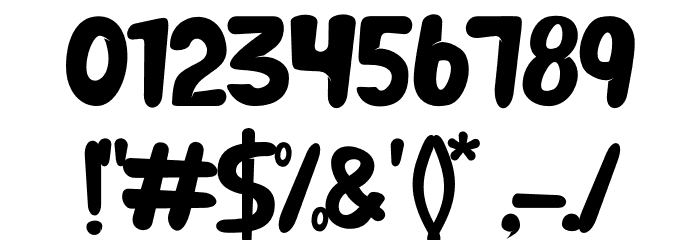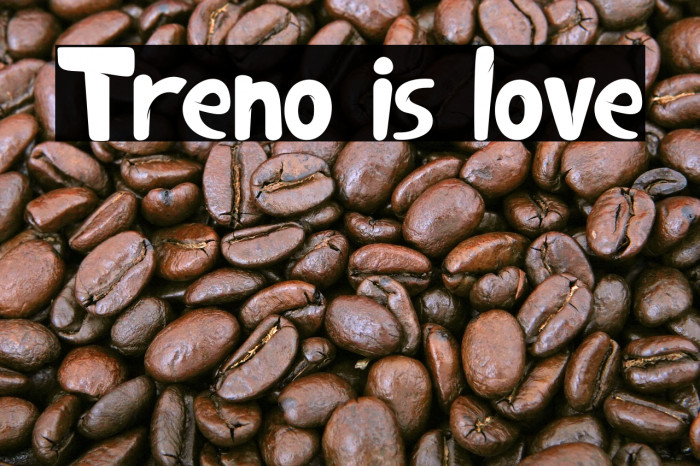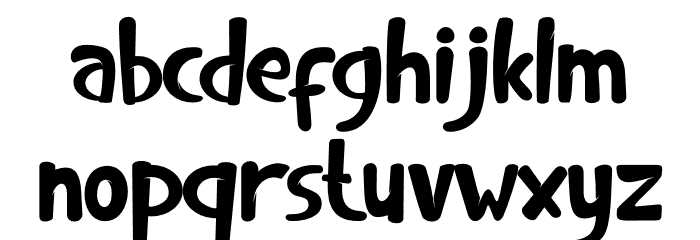
Treno is love Font
This font features a playful and bold style with rounded edges and a slightly irregular form, giving it a hand-drawn appearance. The characters are thick and substantial, providing a strong visual impact. The uppercase and lowercase letters maintain a consistent style, with a whimsical and friendly feel. Numbers and special characters are designed to match the overall aesthetic, making the font versatile for various uses. The font's unique charm makes it suitable for creative projects that require a touch of personality and fun.
A playful, bold font with rounded edges and a hand-drawn appearance.
• Proposed Projects: Ideal for children's books, playful branding, posters, and creative invitations.
• Category: Decorative/Display
• Overall Style: Playful, Whimsical
• Use Case: Headlines, Logos, Posters